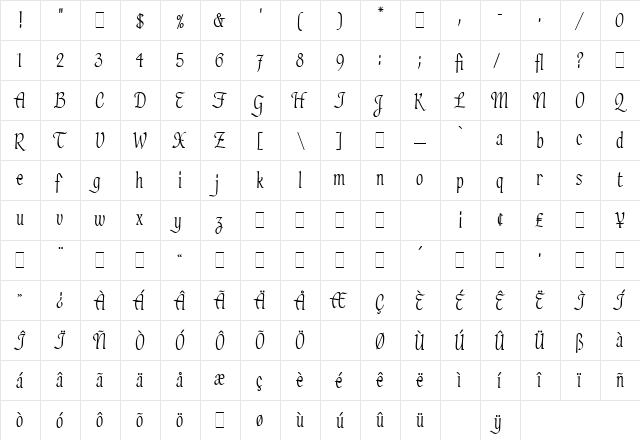
Hadfield LET Plain Font Preview
Hadfield LET Plain
Design Context for Hadfield LET Typeface
Hadfield LET takes a measured approach to typography — its balanced proportions and neutral character make it a reliable workhorse for both digital and print work.